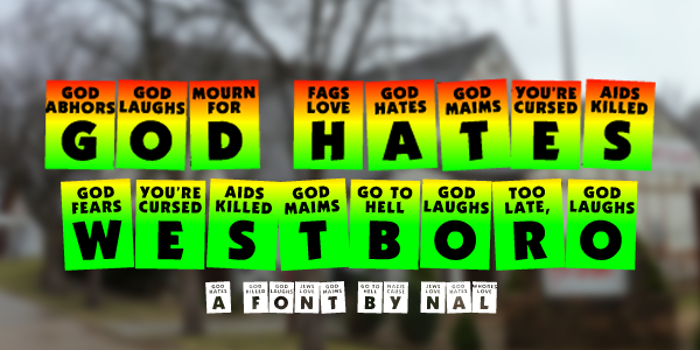
God Hates Westboro Font
A font by Allison James.
Rather than wait around for a typeface to be used in protest art, make the typeface itself the protest art. Have I got the rationale about right?
@Nate547 Really, it was just a bit of a laugh! Me and a few people I know think the people that hold up these signs, and thought it'd be funny to have a font about it. It took literally an hour to do.